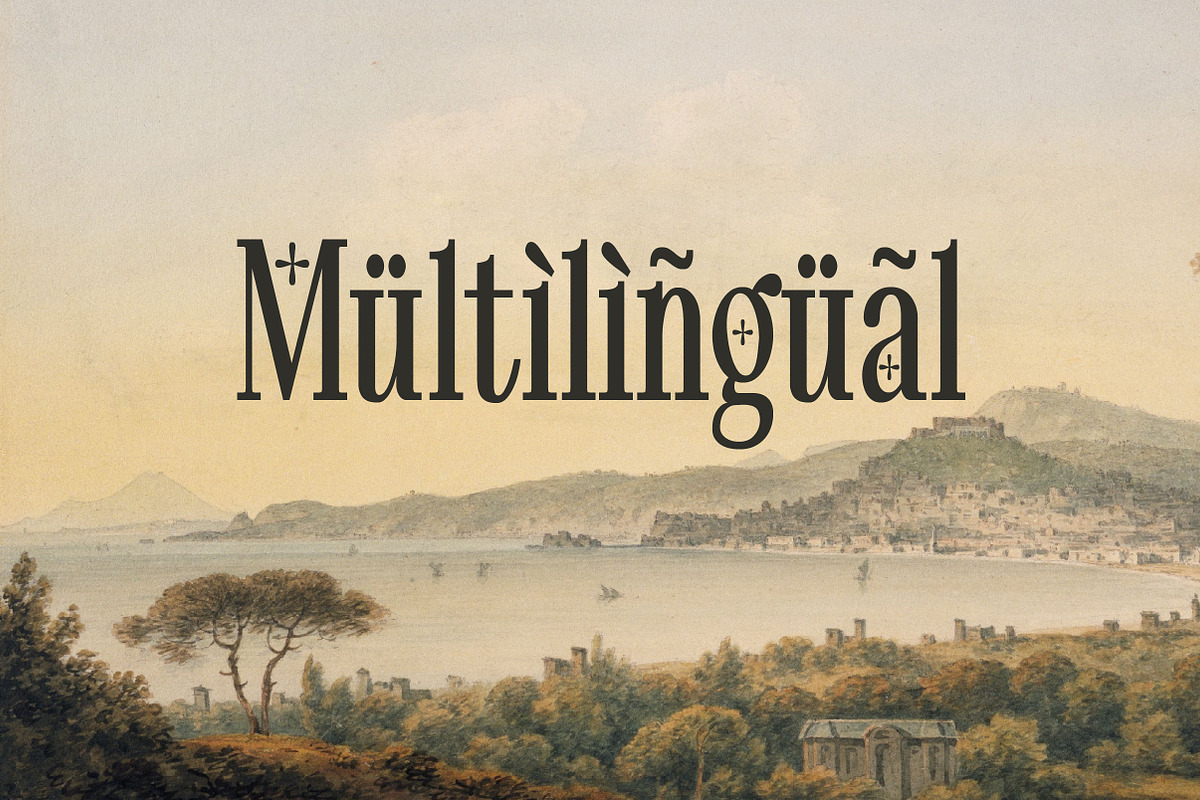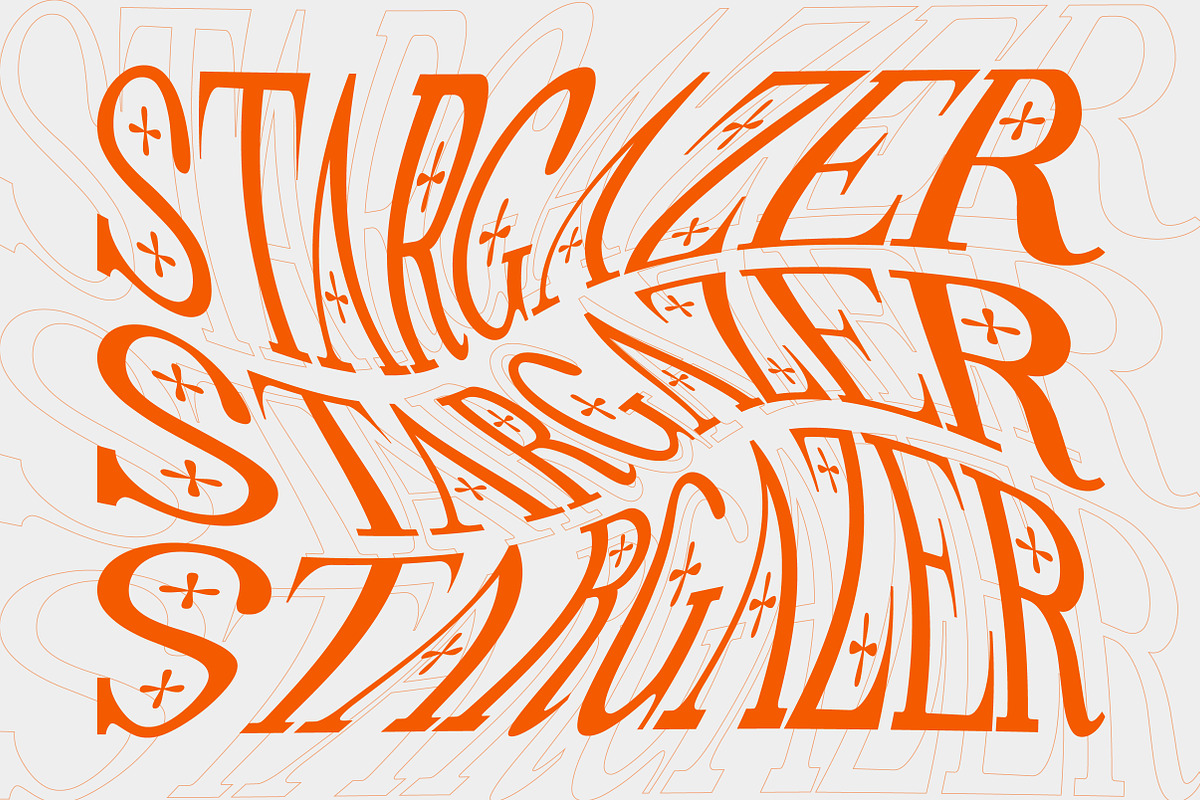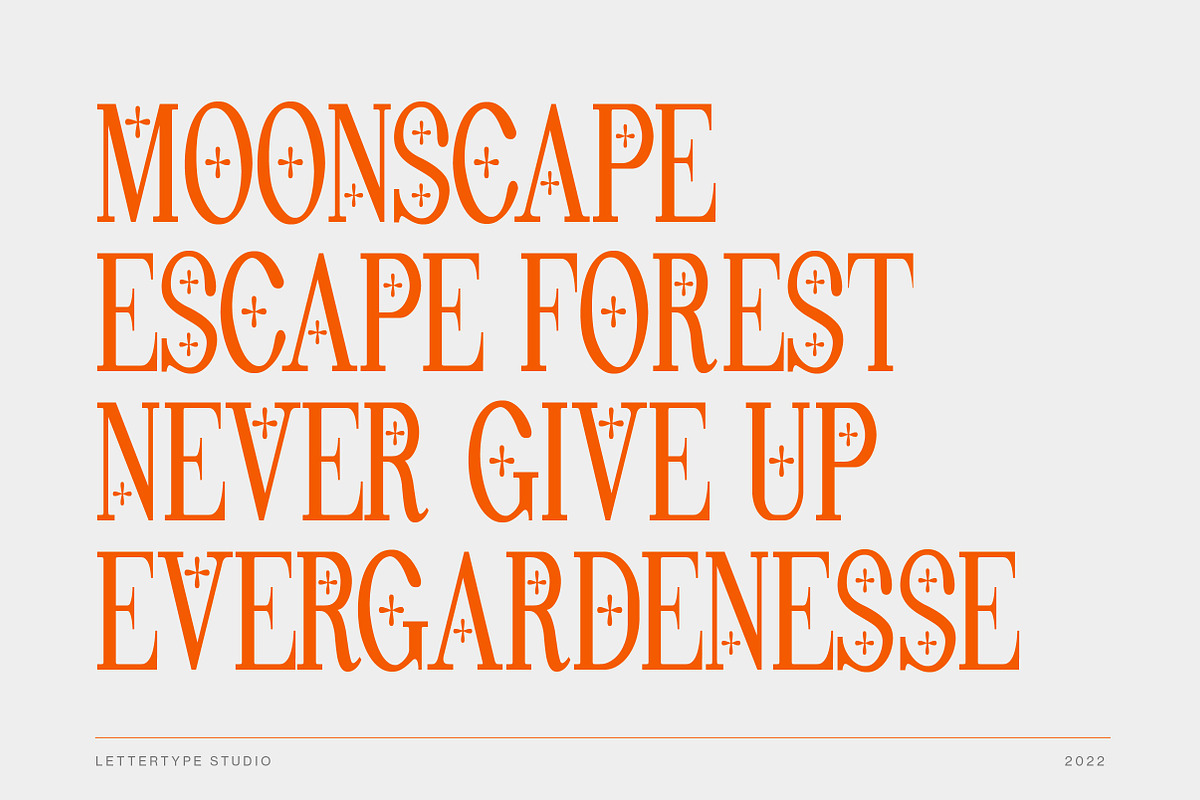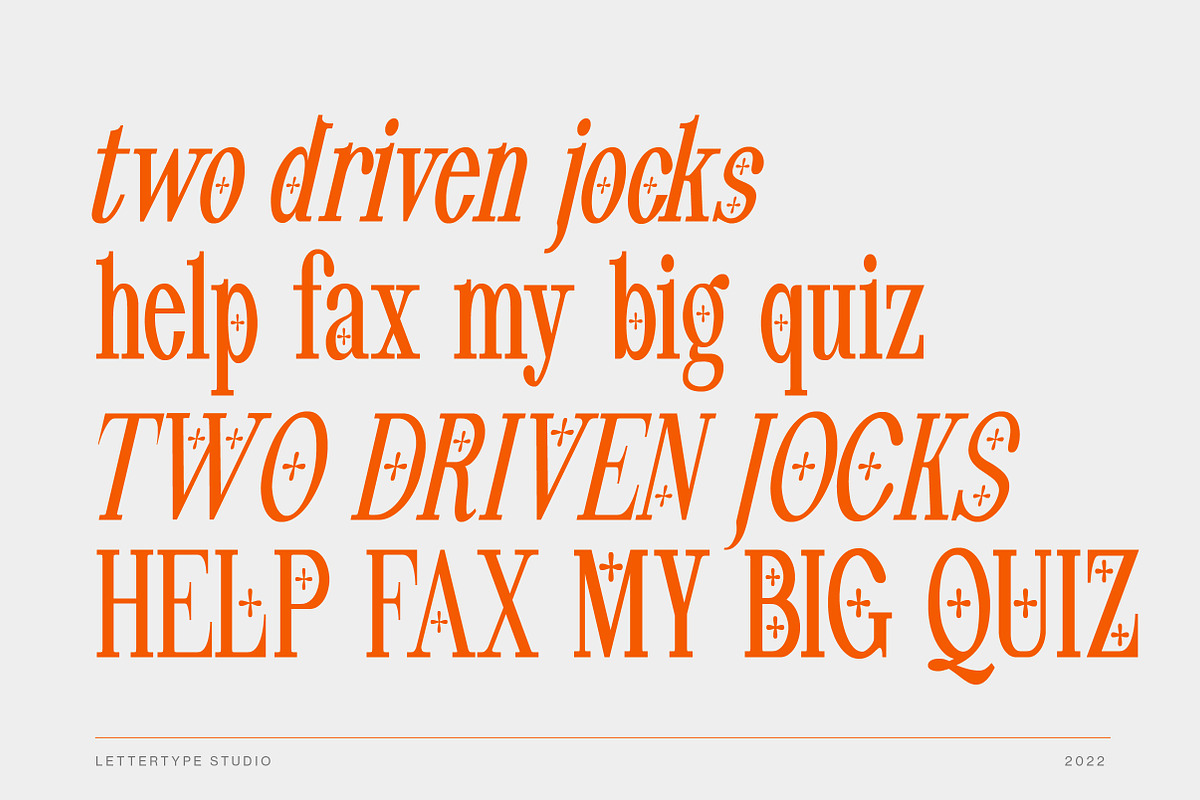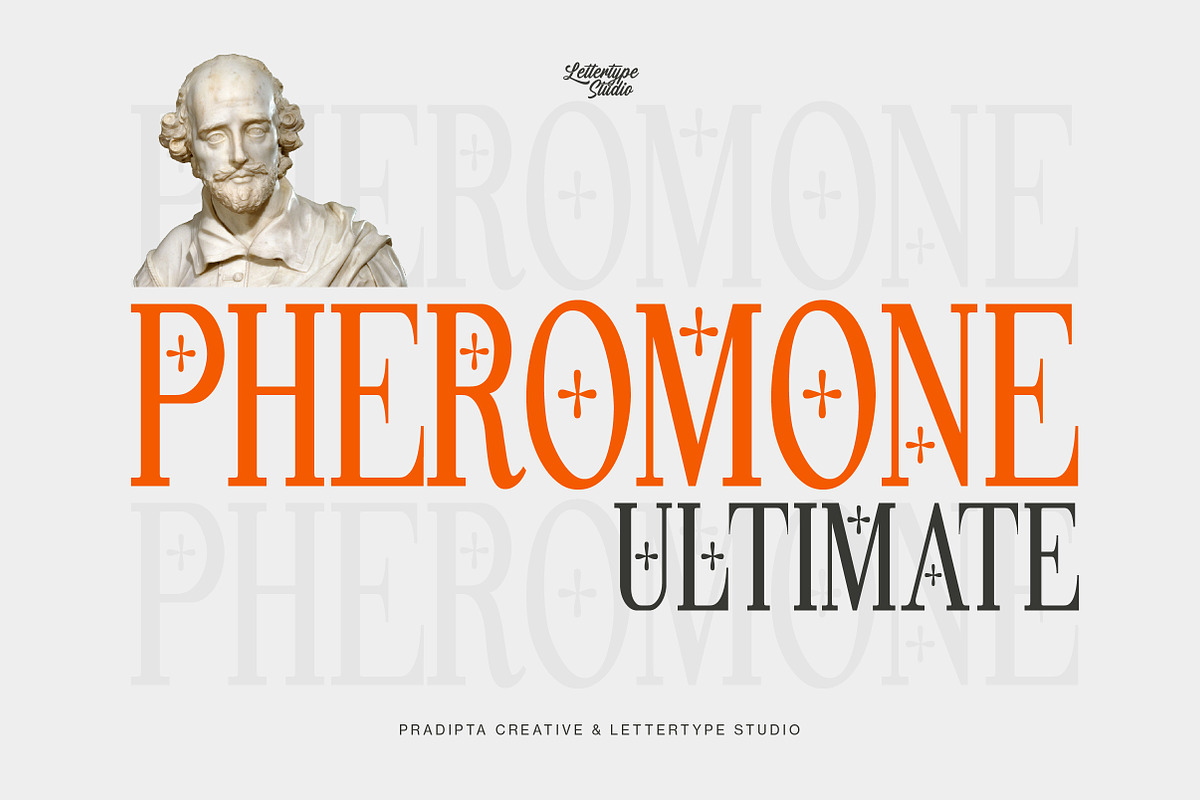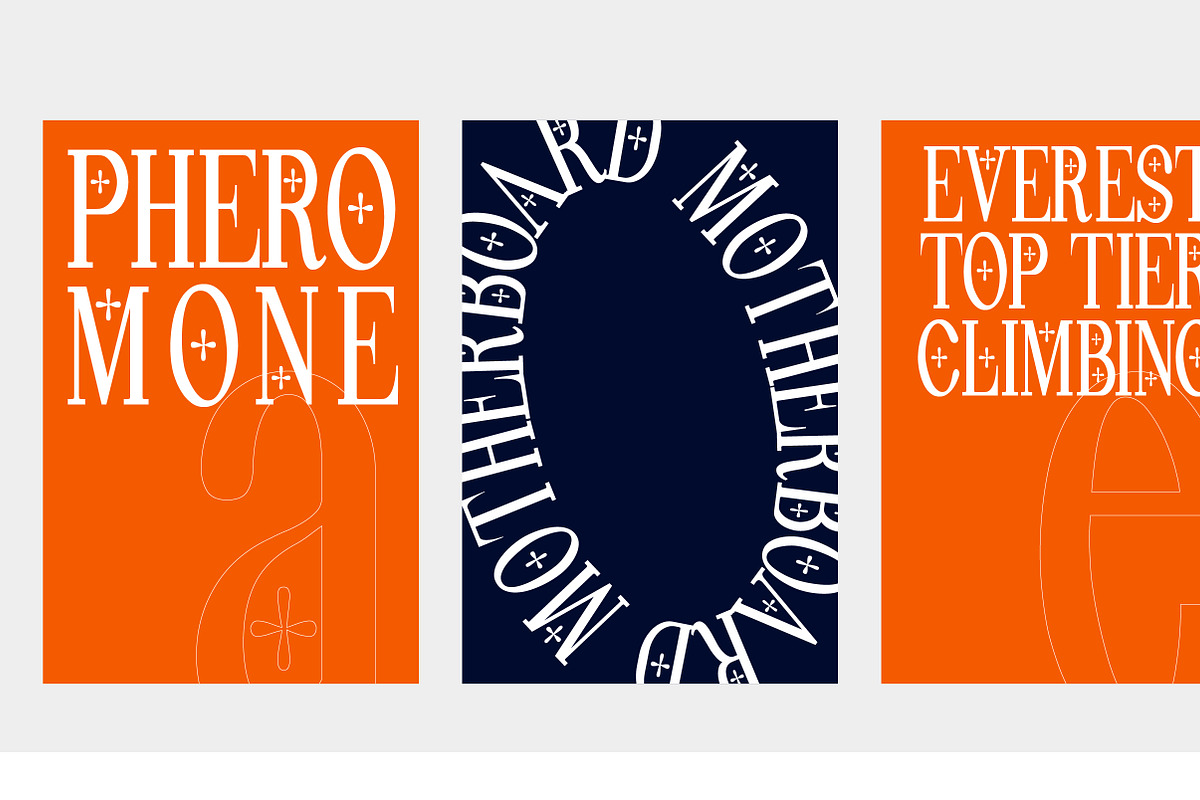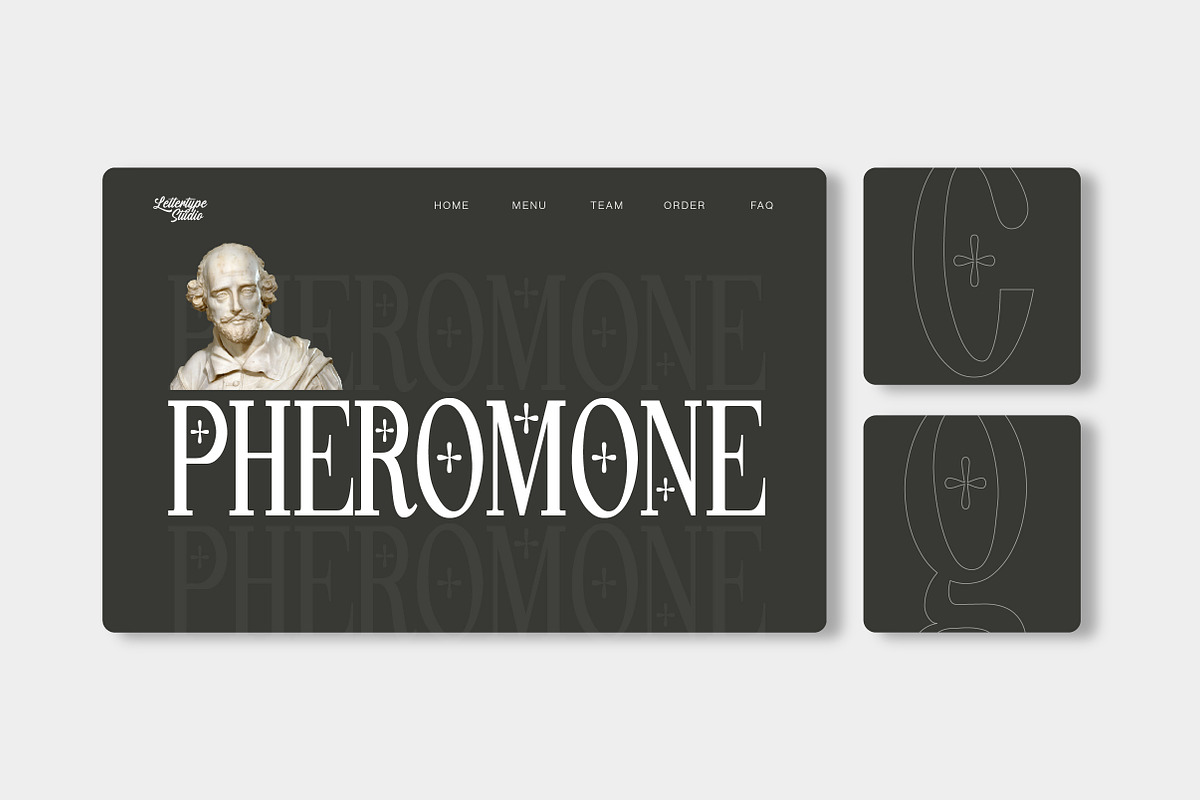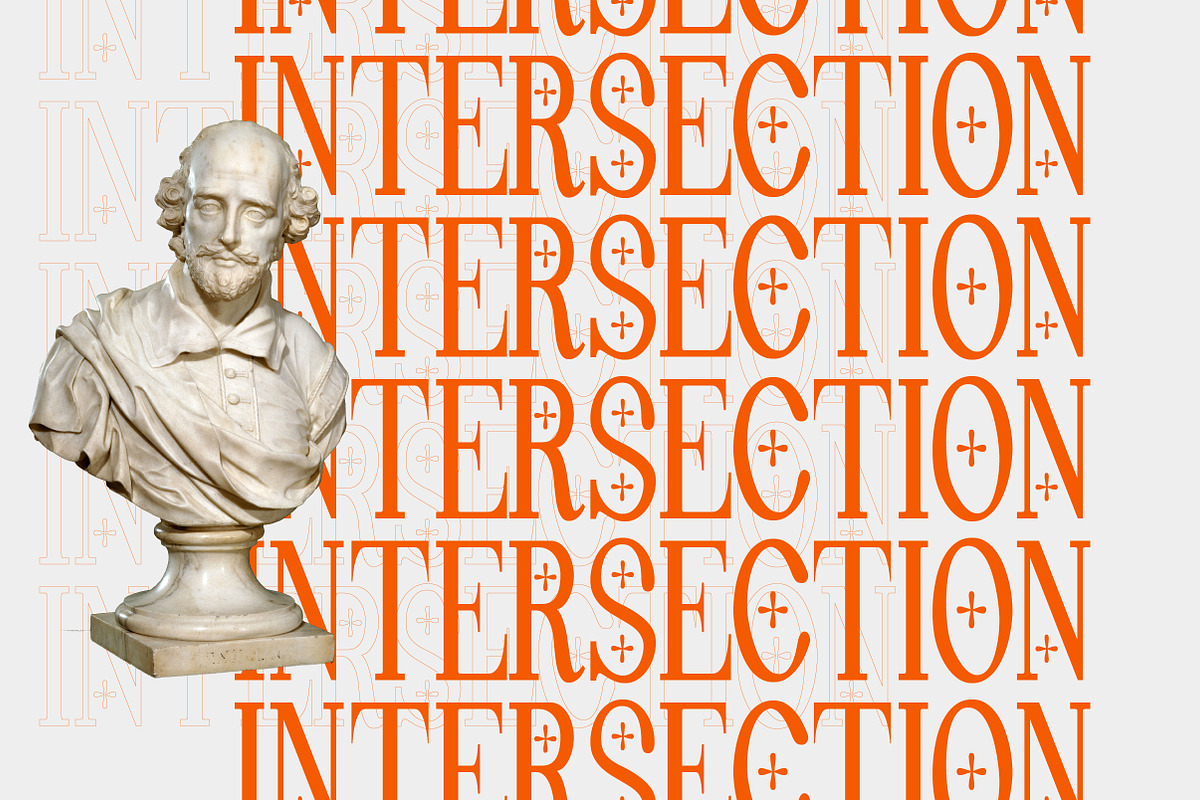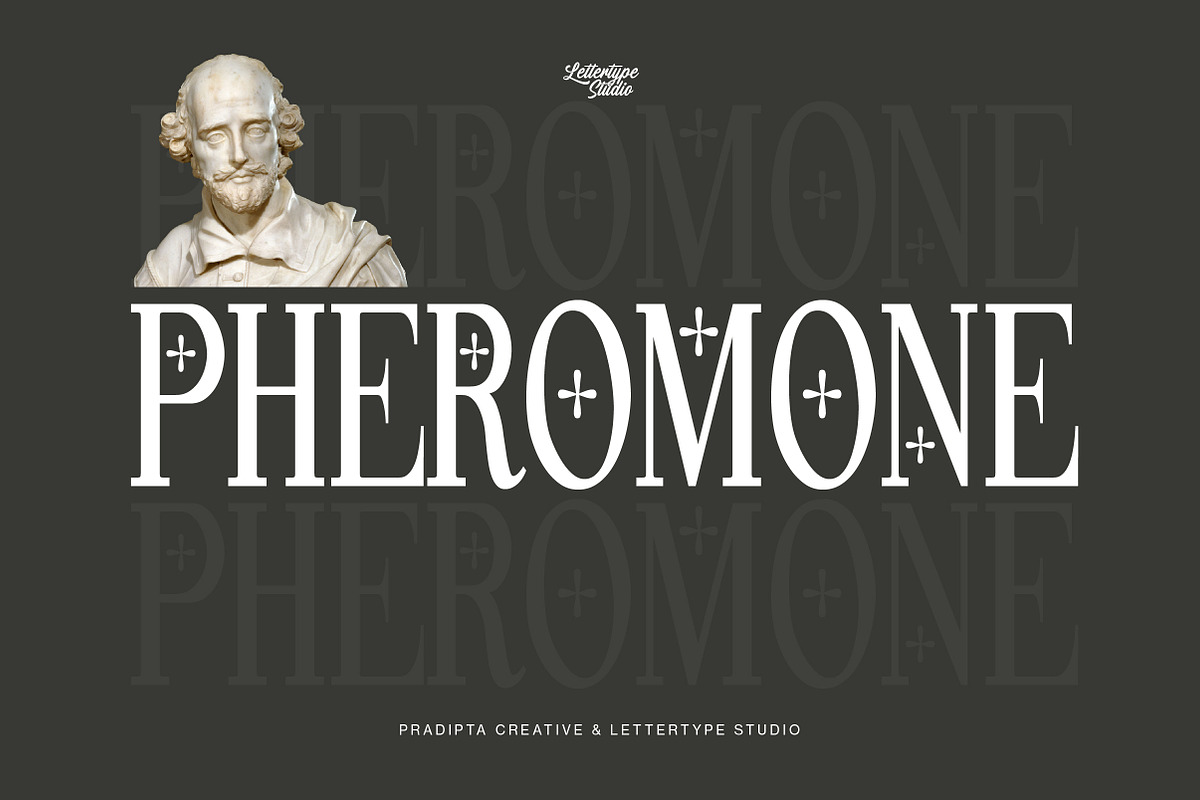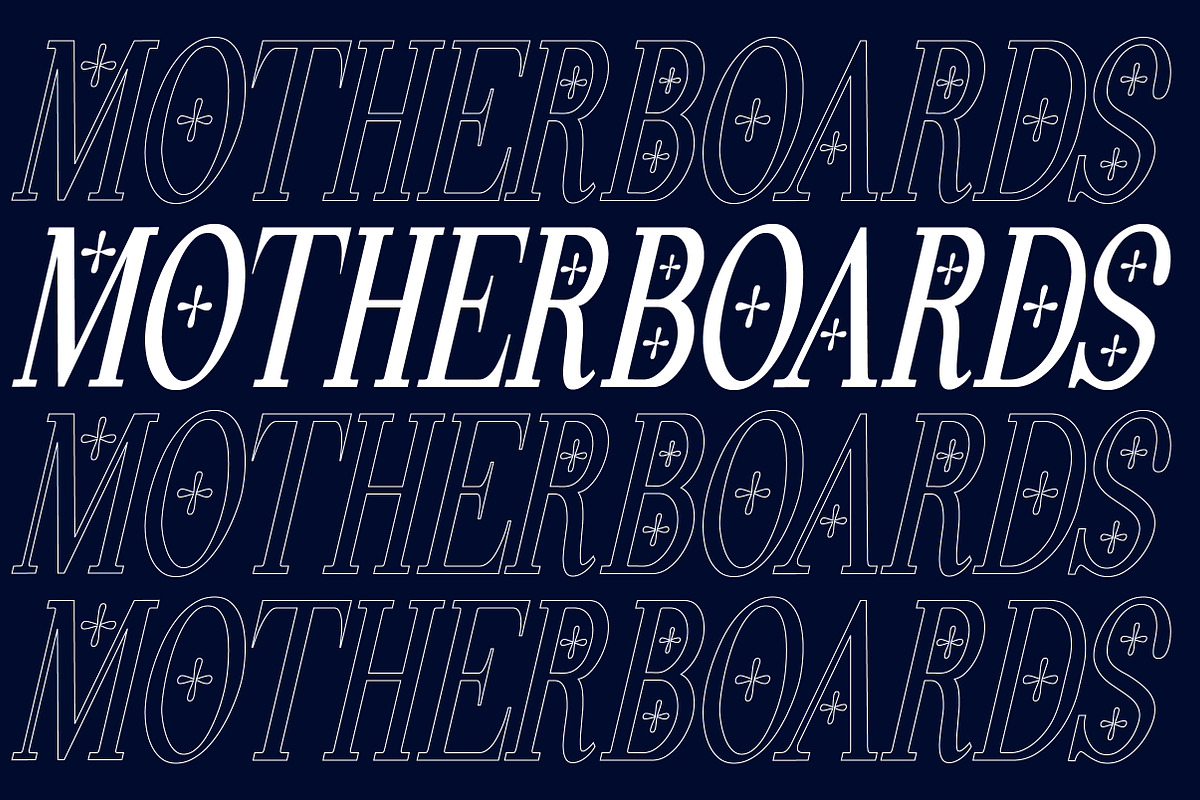
Pheromone Ultimate | Modern Classic
Pheromone Ultimate is a high-contrast serif font with a mixed modern and classic style. Upgrade version of standard Pheromone https://crmrkt.com/v41P4Q
Pheromone Ultimate is our masterpiece modern serif font and is perfect be your headline font. The core of Pheromone Ultimate is a condensed style, this is why can be perfect to be your headline.
Pheromone Ultimate will be perfect for your headline, logo design, branding, clothing, signage, posters, wedding invitations, cosmetics or fashion and so much more!
Pheromone Ultimate will help your project or brand have a unique vintage, classic look, and stand out.
Lowercase, Uppercase, and Ligatures
Accented Characters
Pheromone Ultimate Font Family (Regular, Italic, SemiBold, & SemiBold Italic)